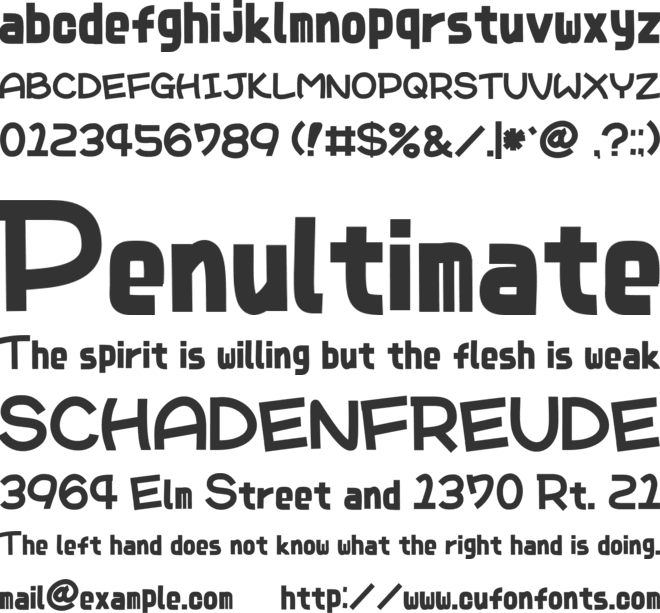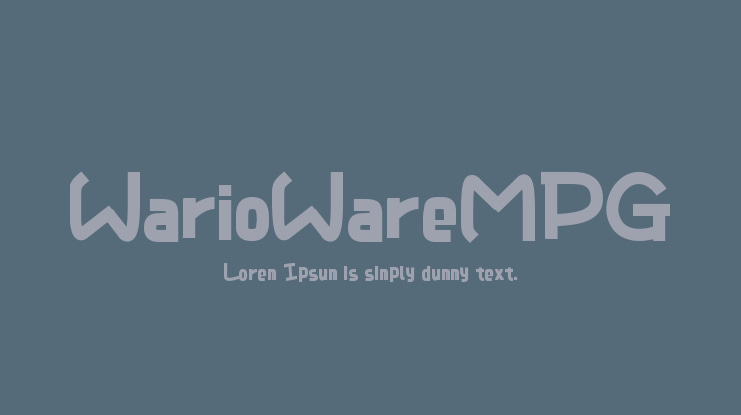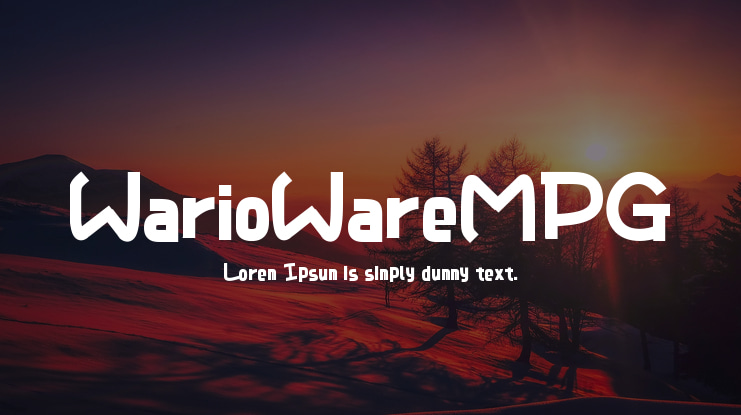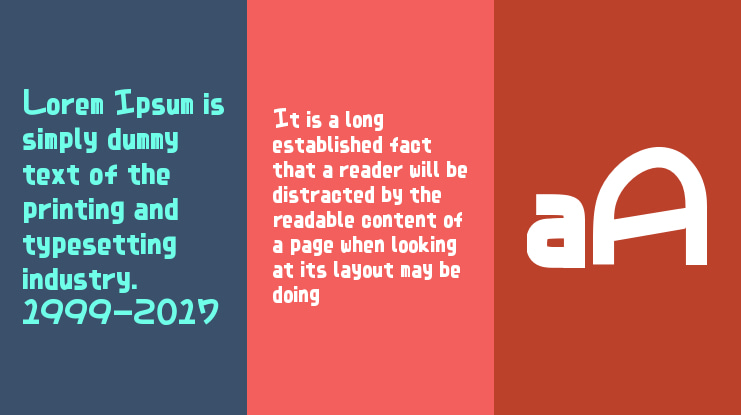
WarioWareMPG Font
Remake of the in-game font from WarioWare Mega Party Game$, made using my WarioWare Inc. font. Also contains both sets of kana.
Update: Because I forgot, I added the small katakana ya, yu and yo.